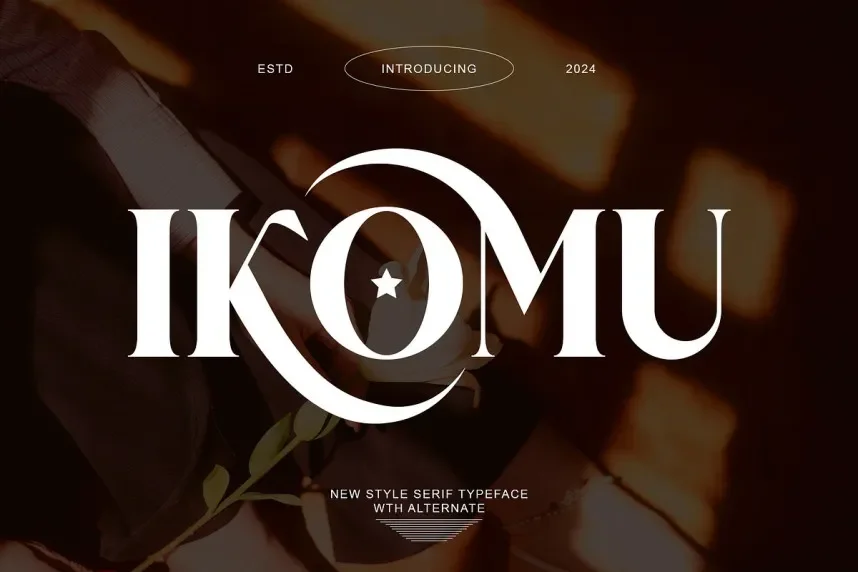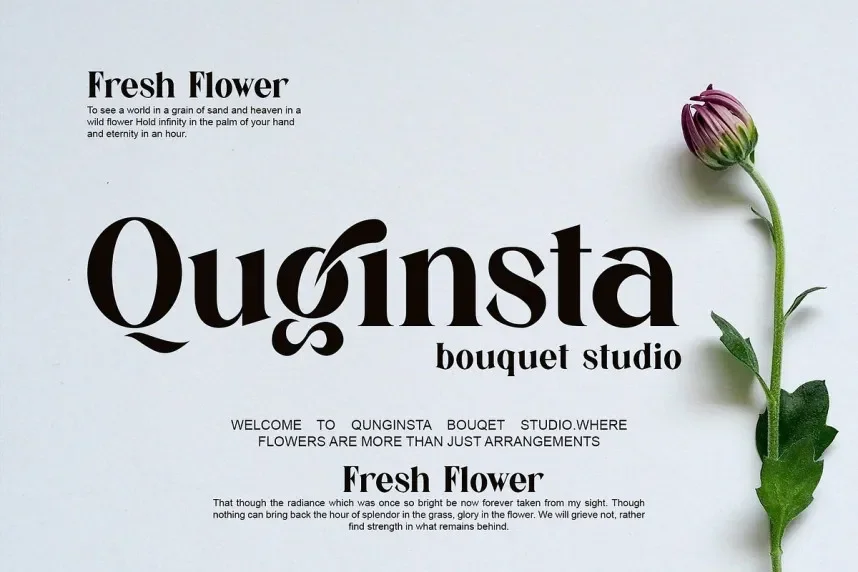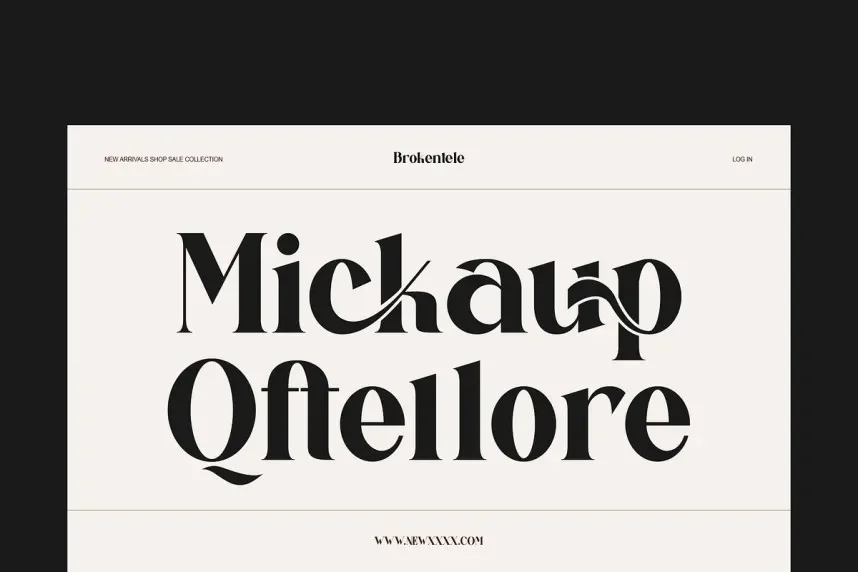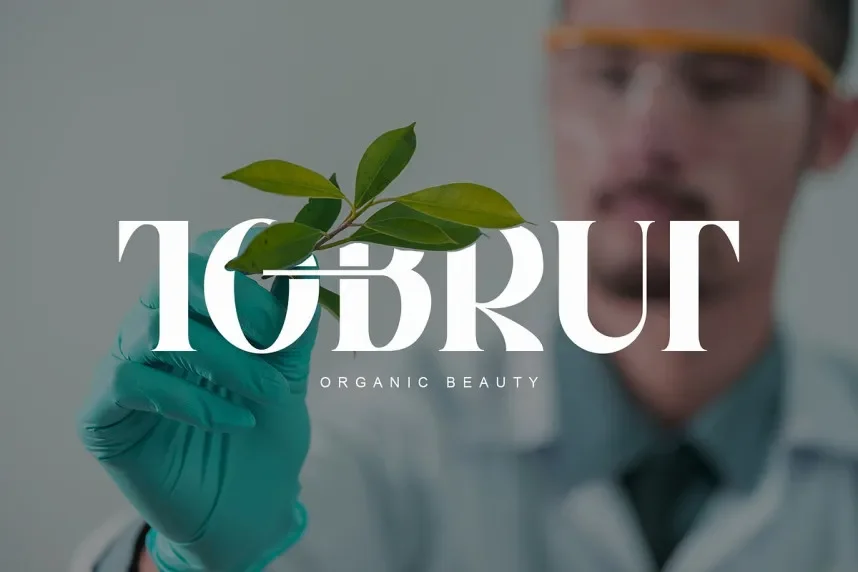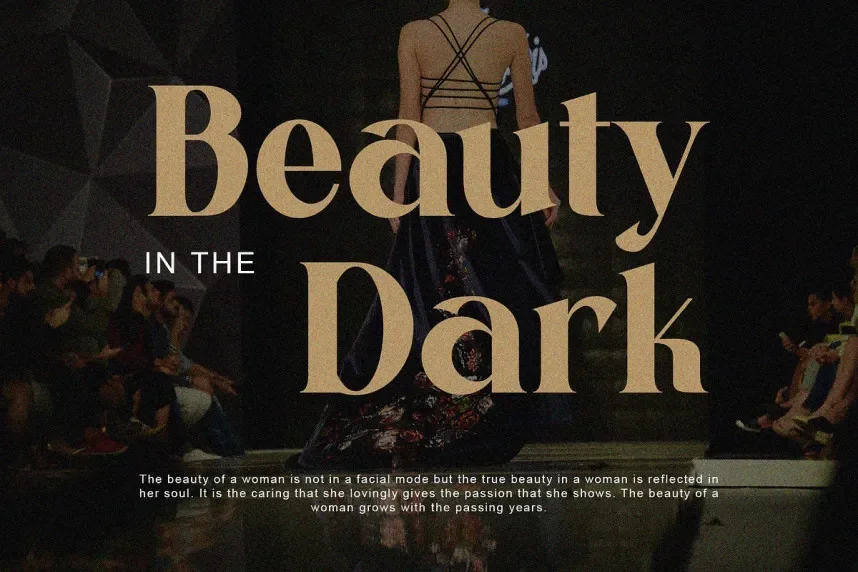
Jegan Serif Font is a refined serif typeface that combines traditional letterforms with modern proportions. Its strong, elegant serifs and high contrast between thick and thin strokes make it perfect for formal branding, editorial design, and print projects.
Ideal for logos, magazine headlines, and invitations, Jegan Serif Font pairs well with simple sans-serif fonts for body text. Available in TTF and OTF formats, it includes a commercial-use license. Be sure to verify the license for commercial use.